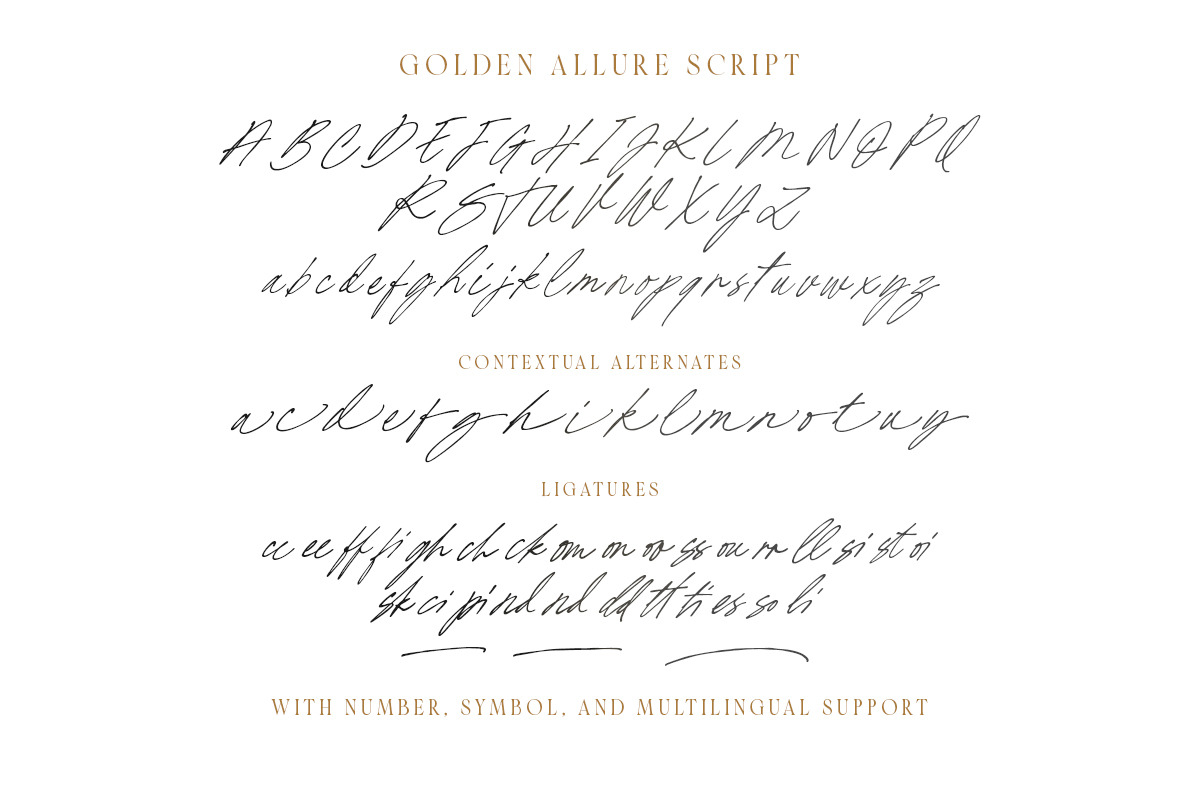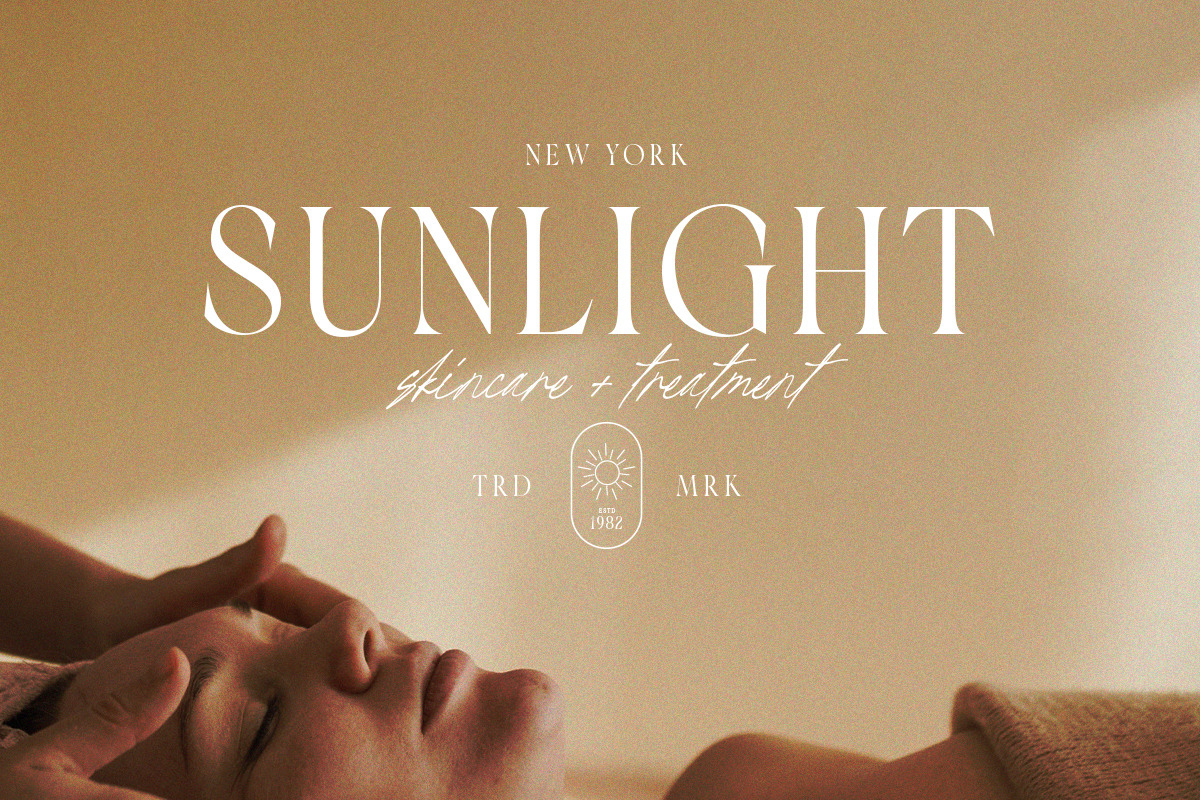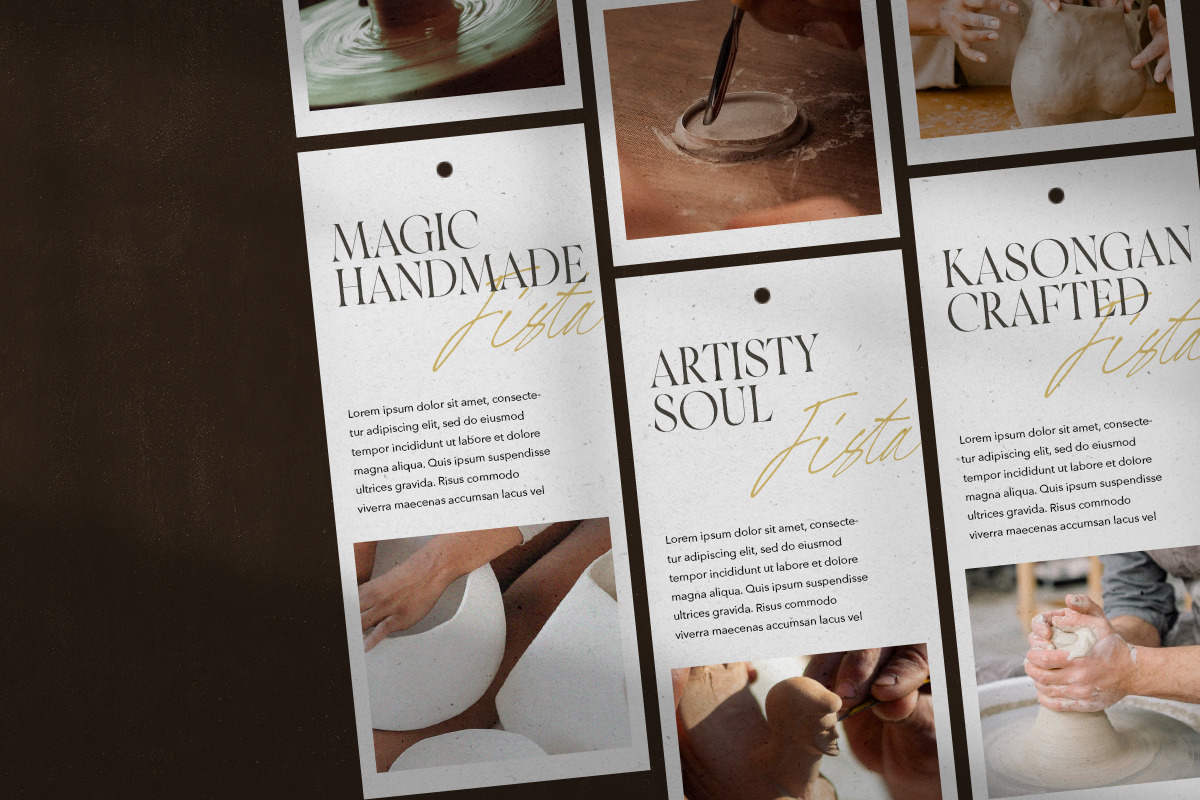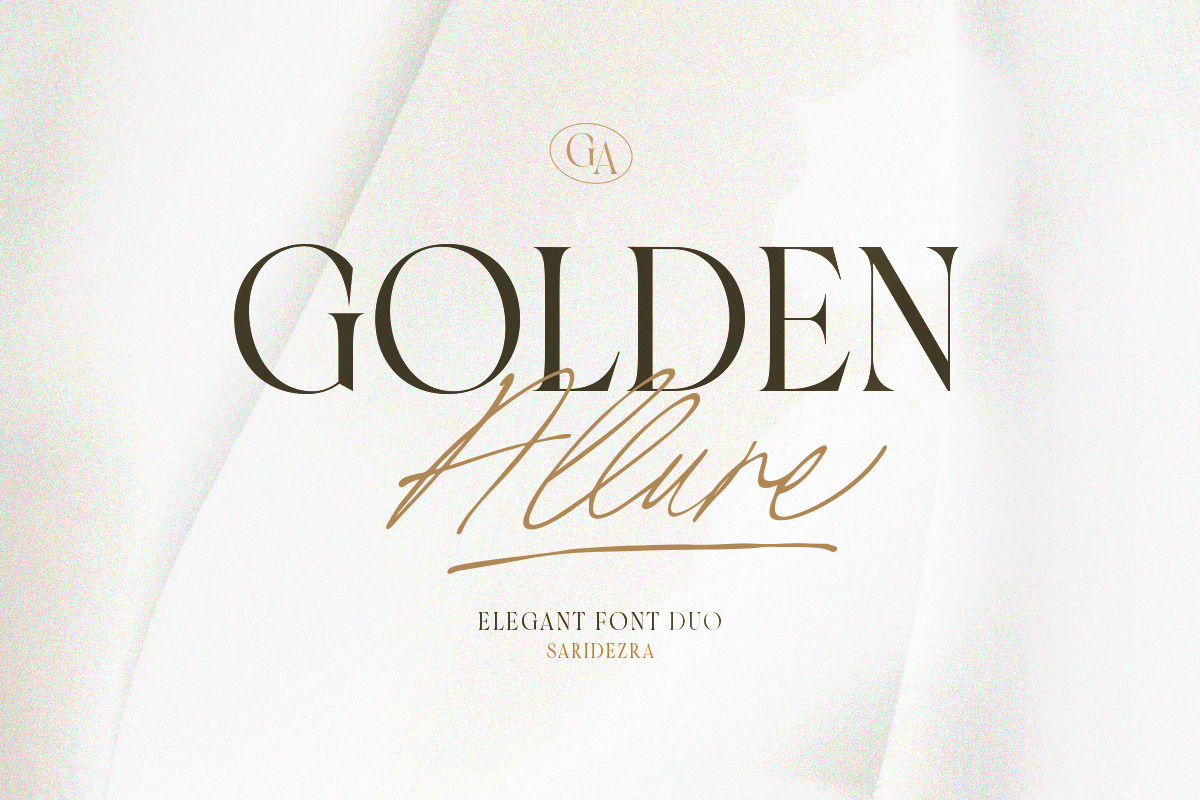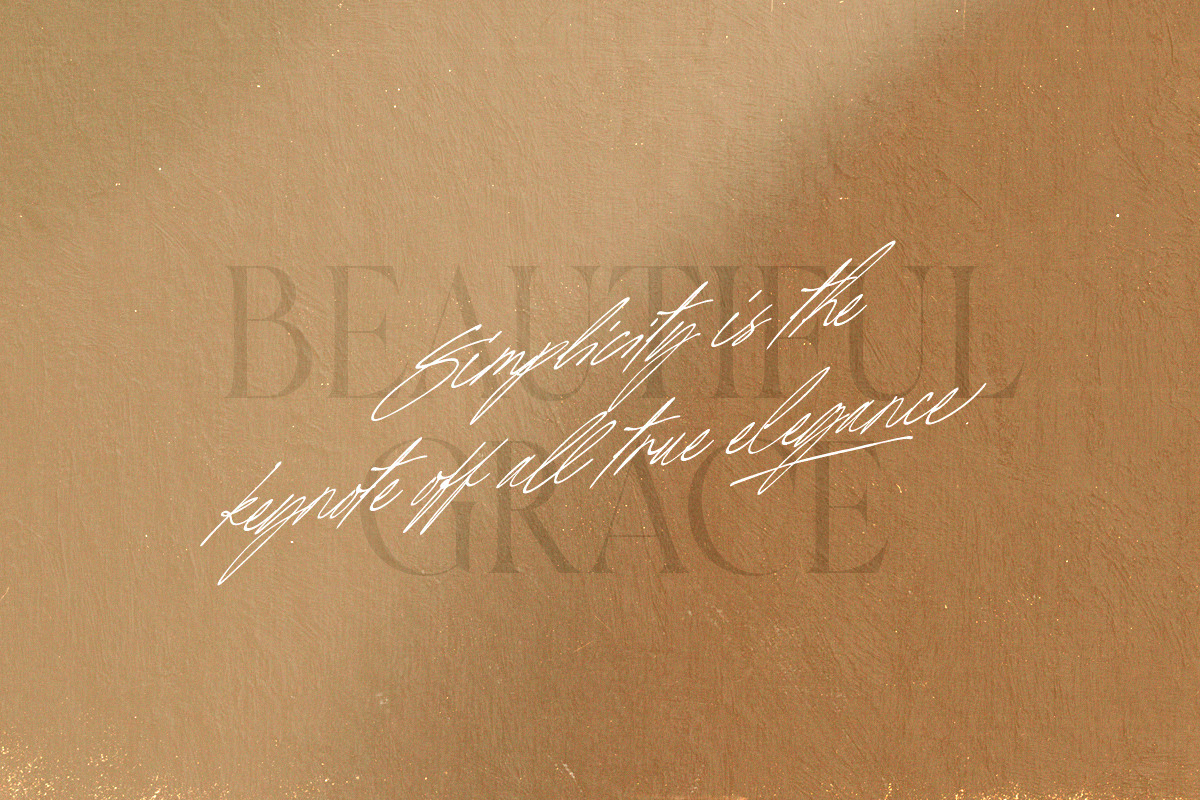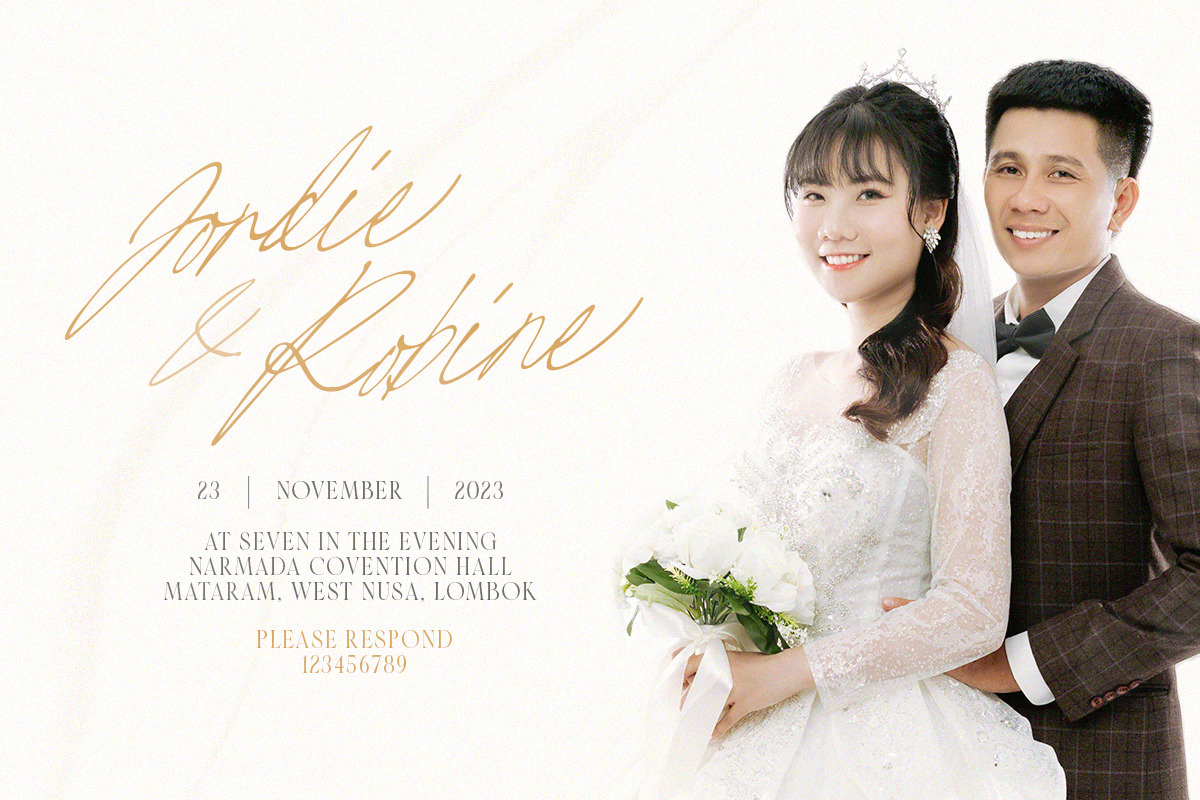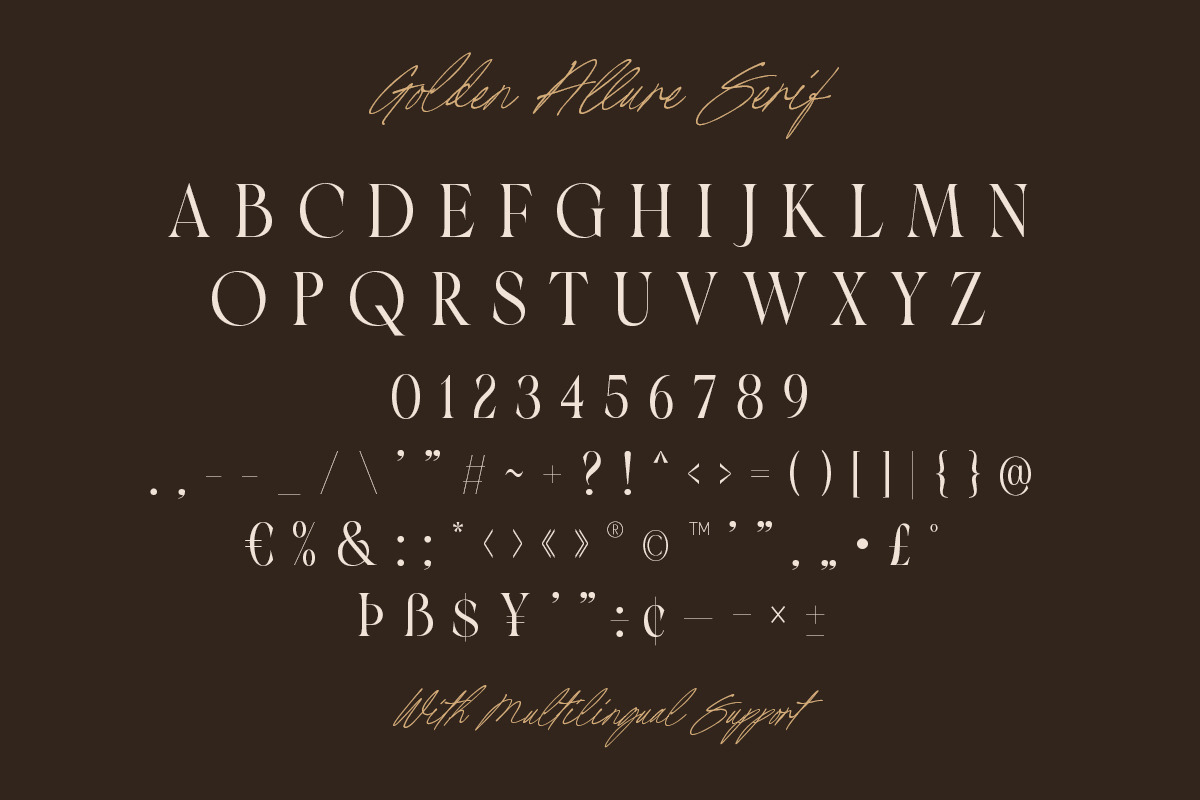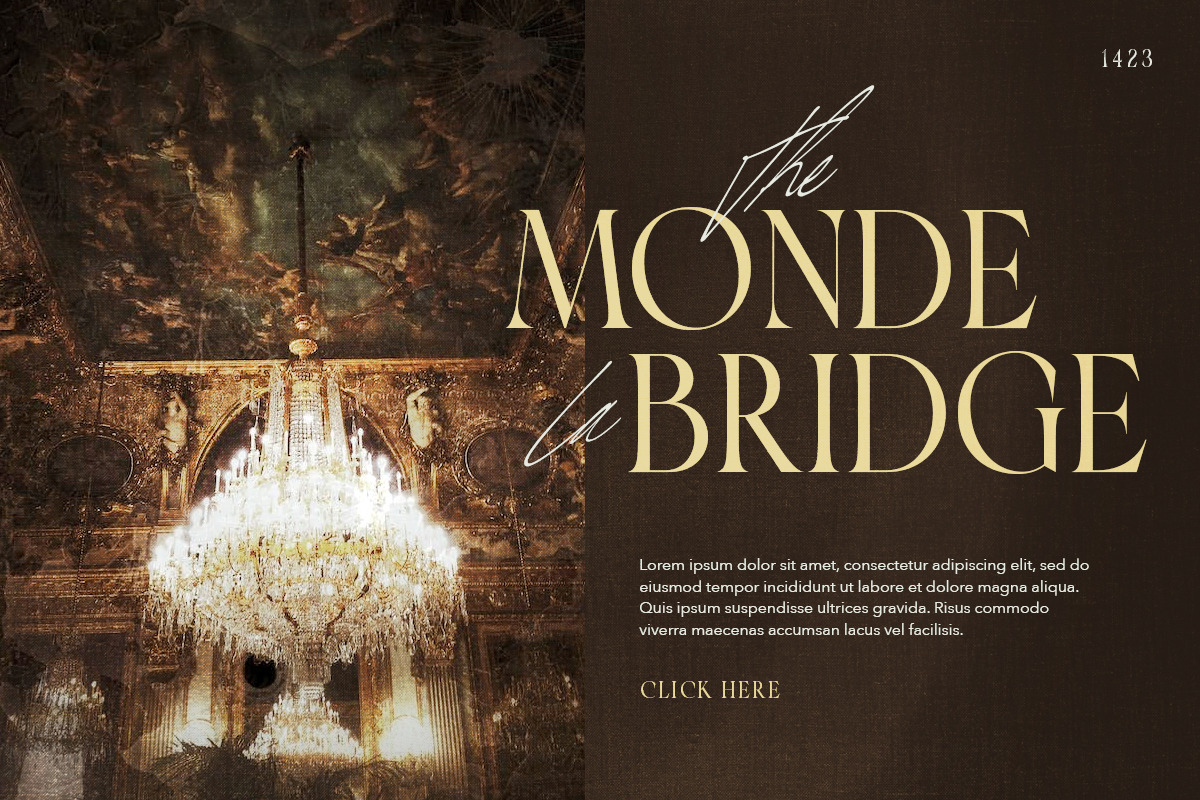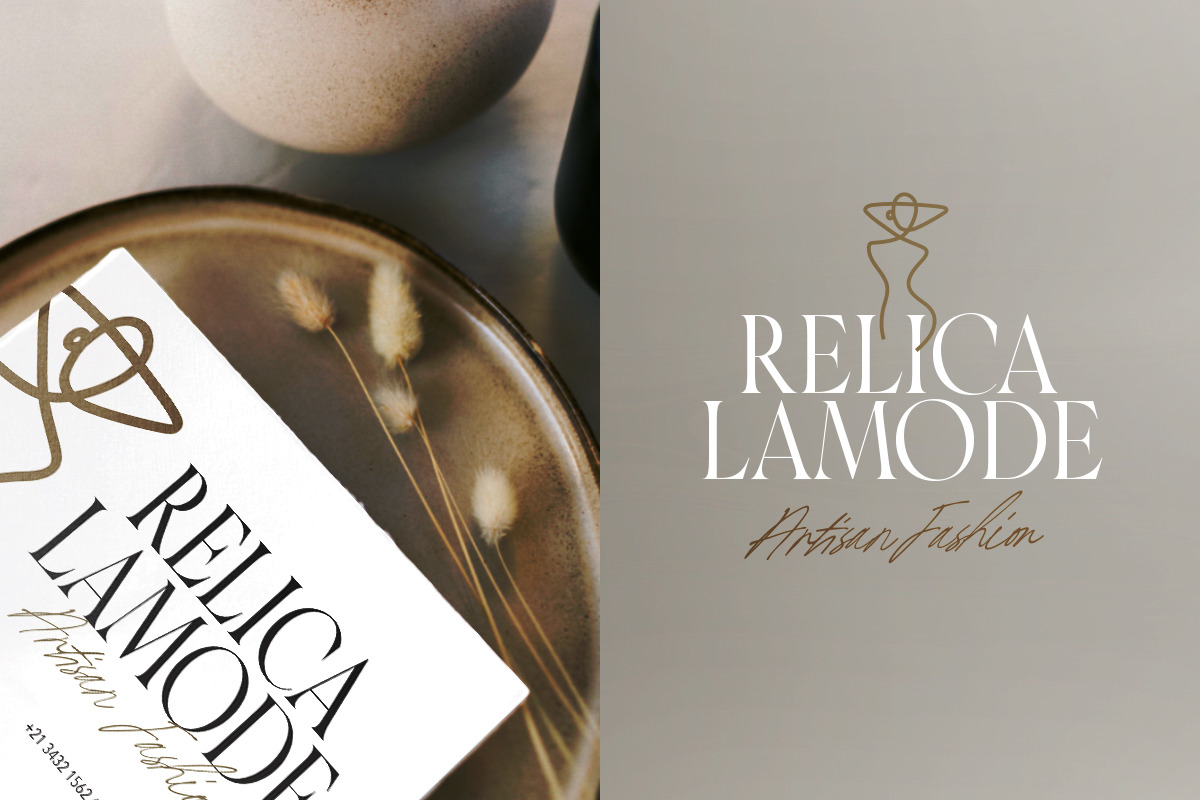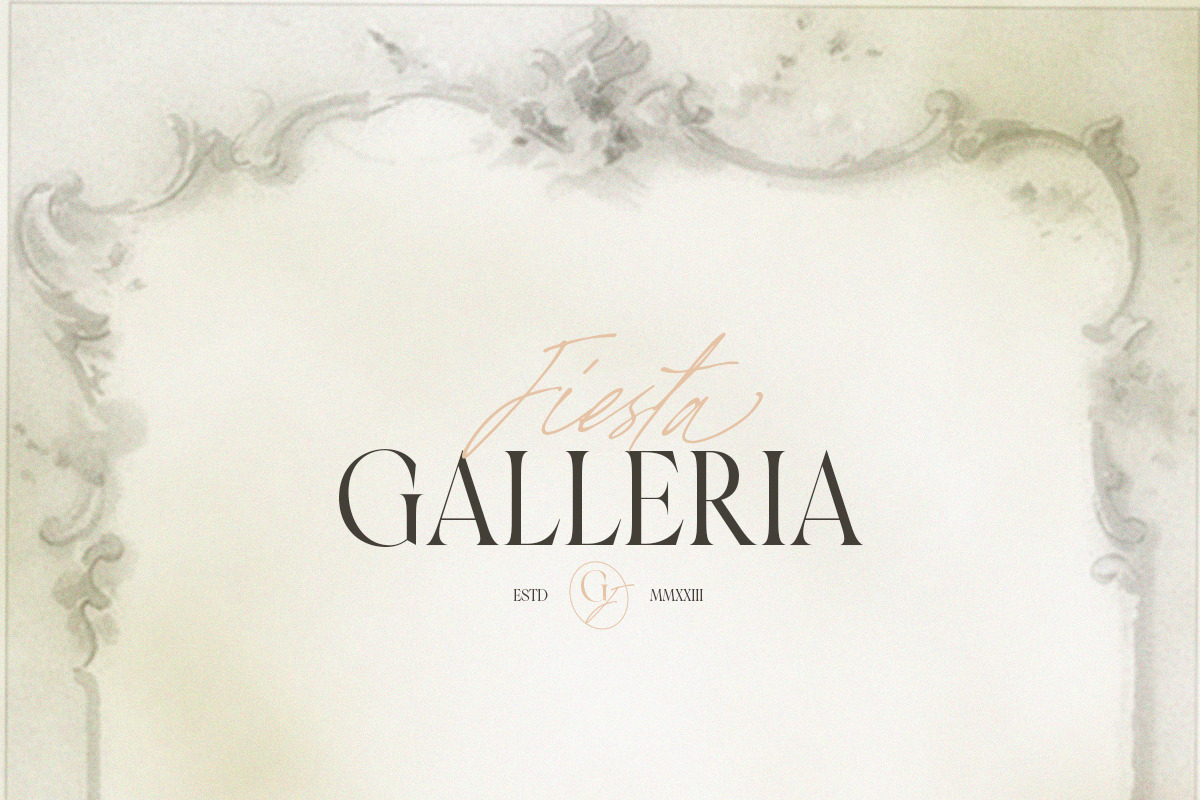
Golden Allure - Elegant Font Duo
Proudly present, elegant font duo, Golden Allure!
Golden Allure is an elegant combination between modern serif with handwritten script. Contain two fonts, the modern yet classy serif and signature handmade script. You can use this font for any purposes, suitable for any project. This font duo also support multilingual, number and symbol, end swash and many ligatures.